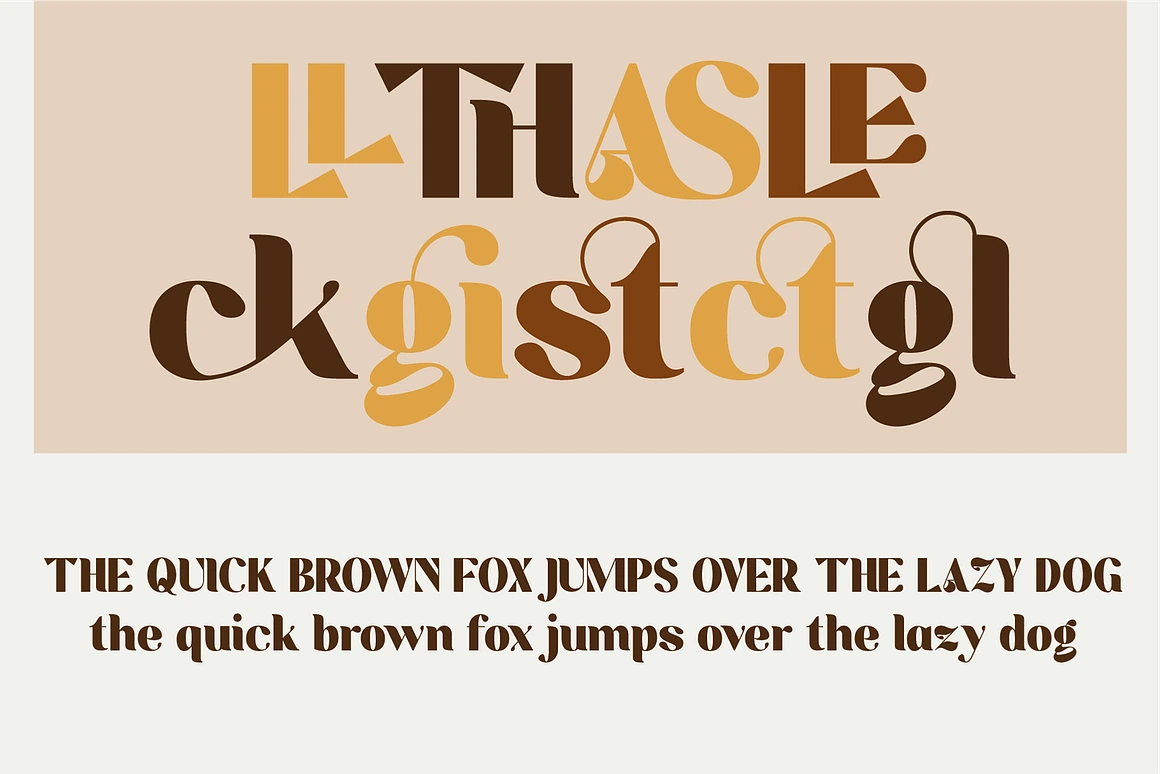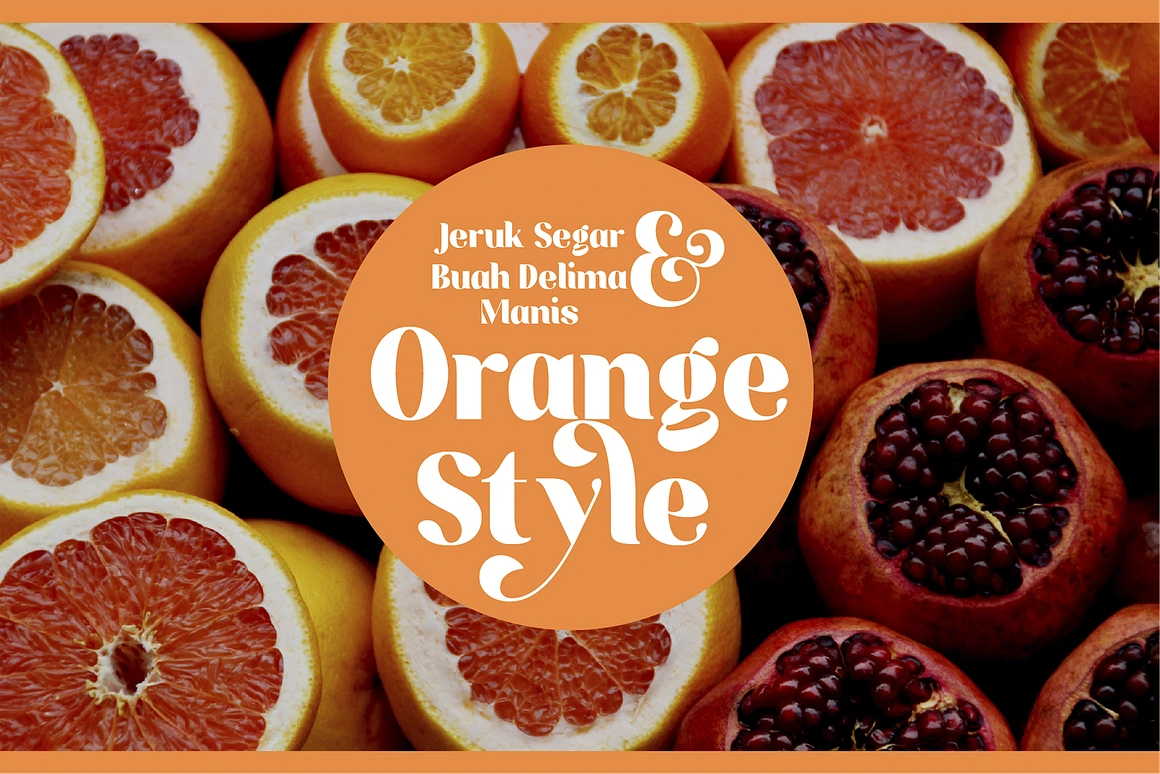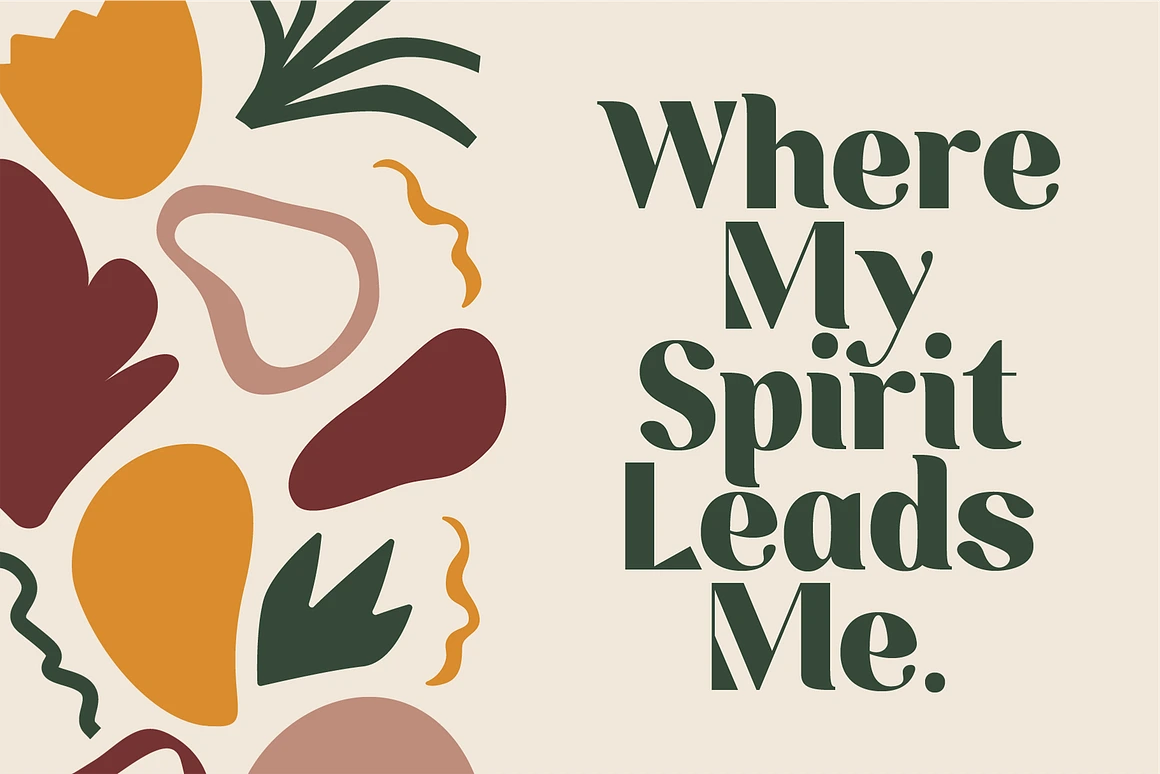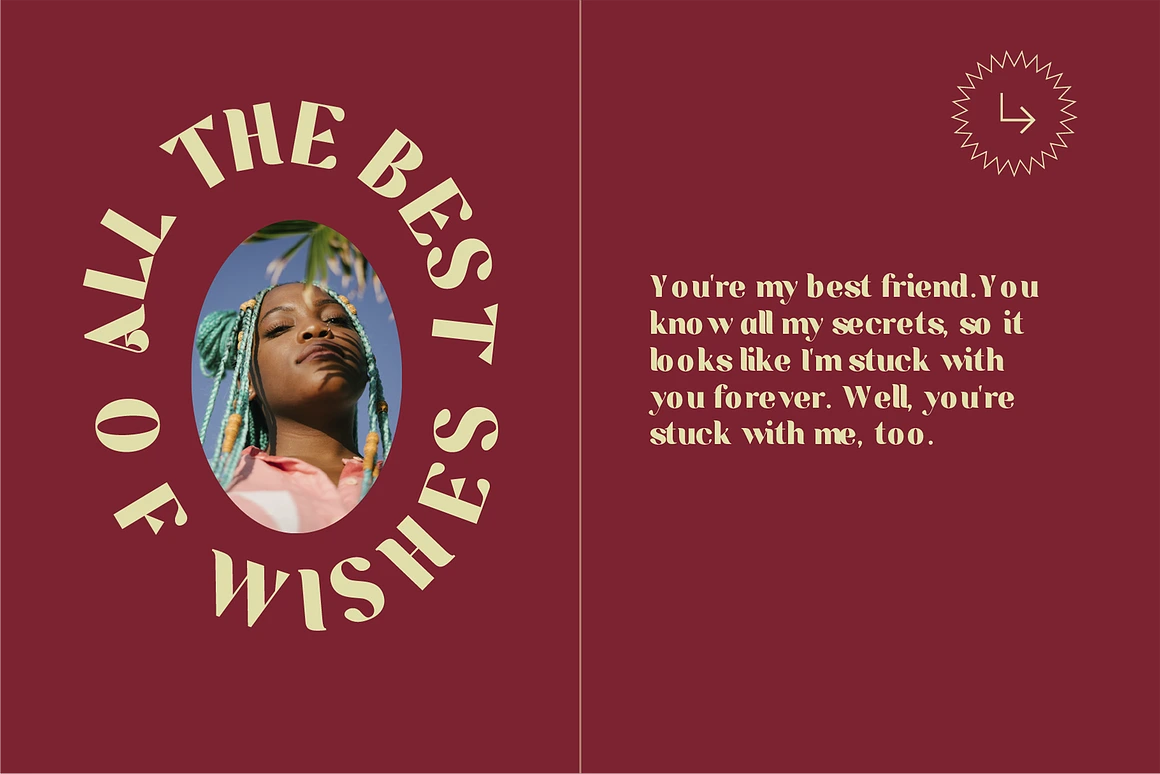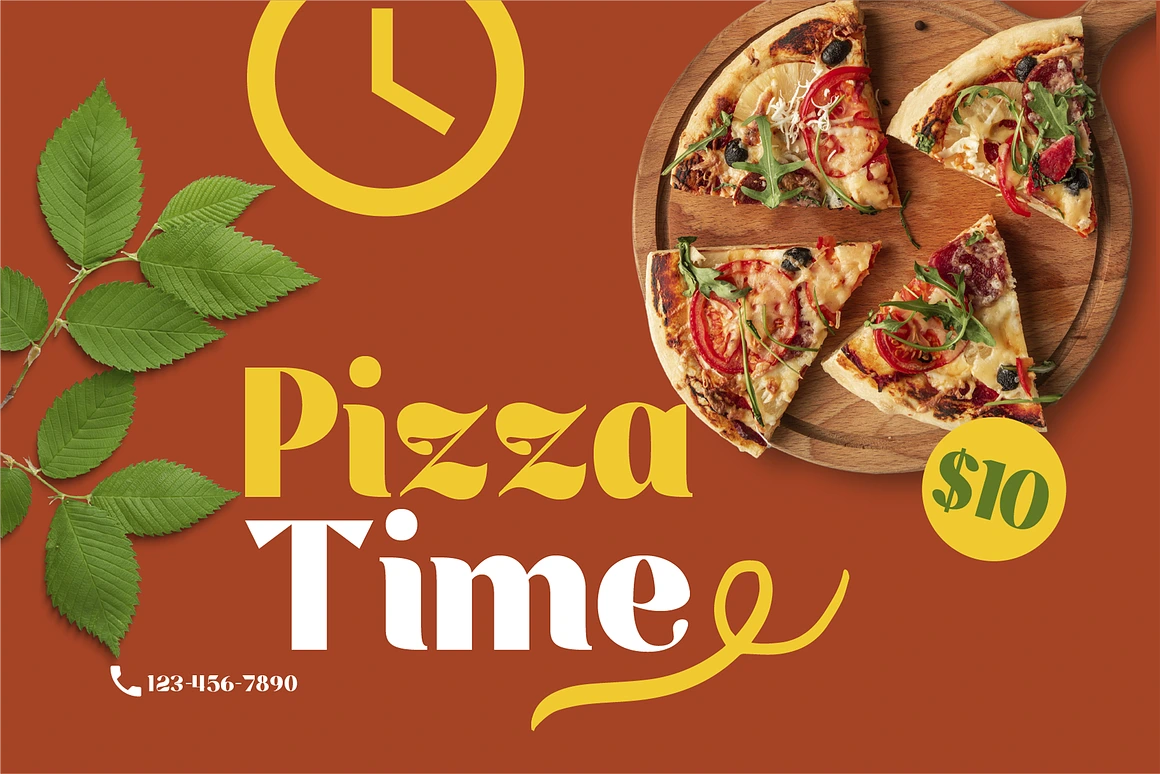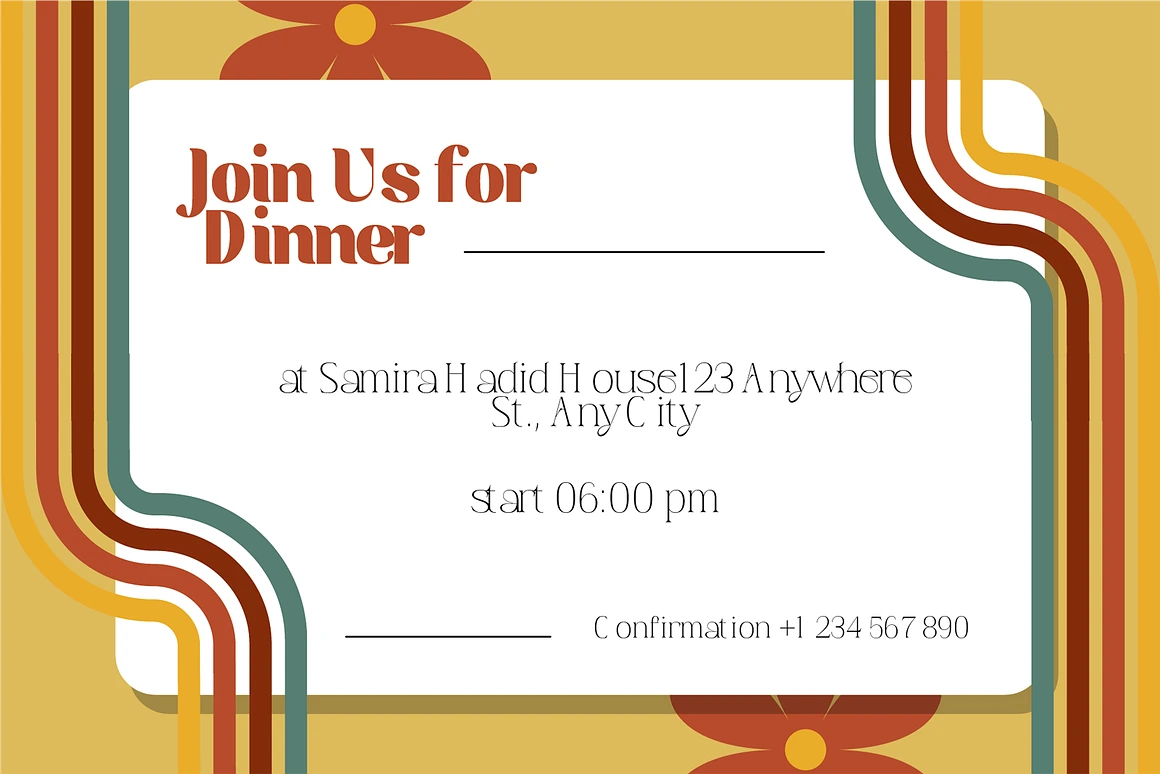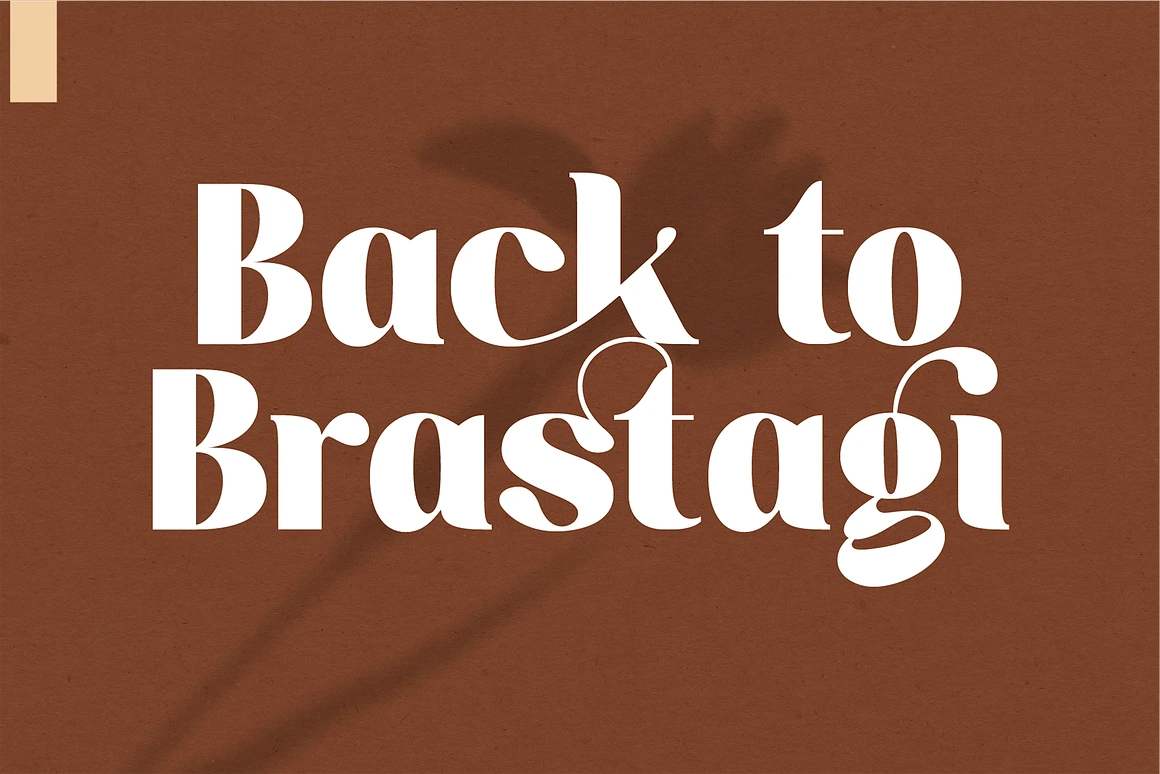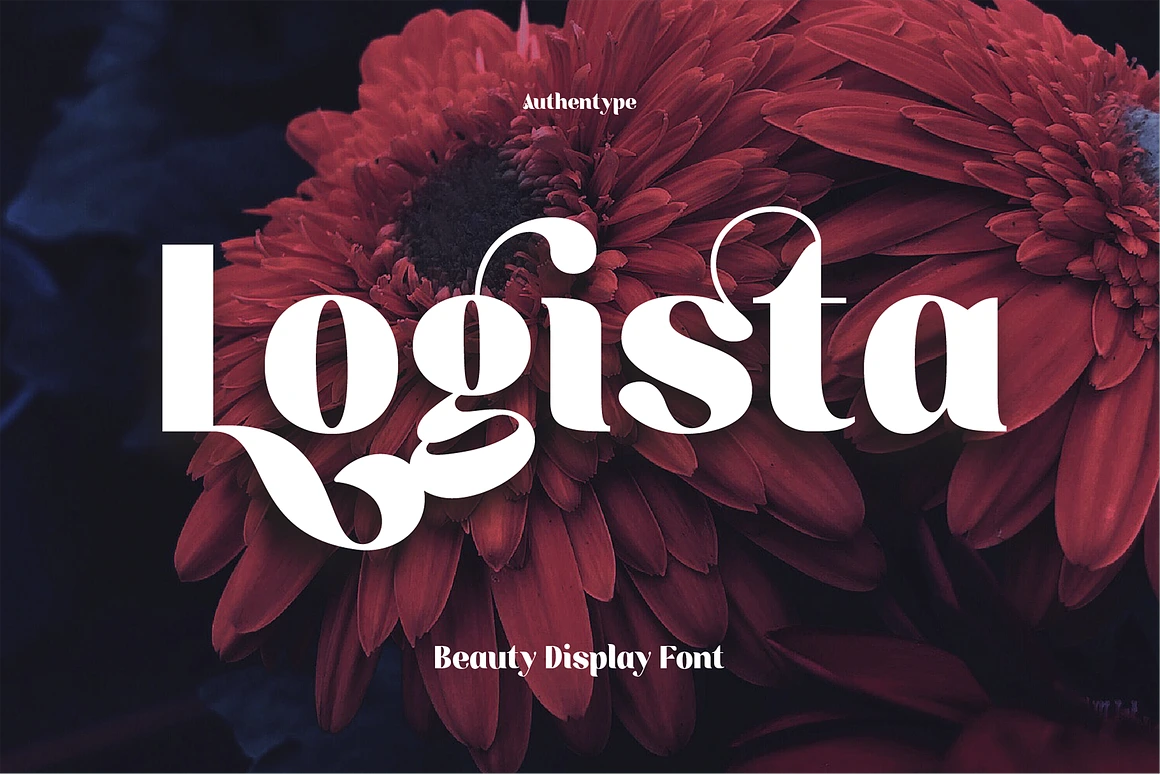
Logista Beauty Display Font
Logista contains 1 style.
Logista – Beauty Display Font is a display font with a full set of uppercase and lowercase letters, multilingual symbols, numbers, punctuation, and ligatures. Logista beauty display font style for poster, magazine, beauty brand design with swash glyph suitable for your beautiful elegant design concept.
Standard glyphs uppercase and lowercase letters
Numerals, a large range of punctuation and ligatures
Lowercase letters include ending swashes